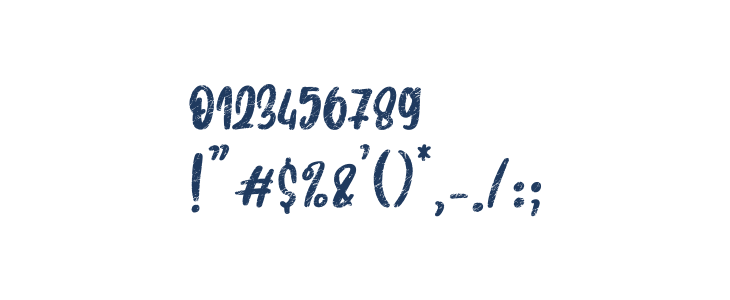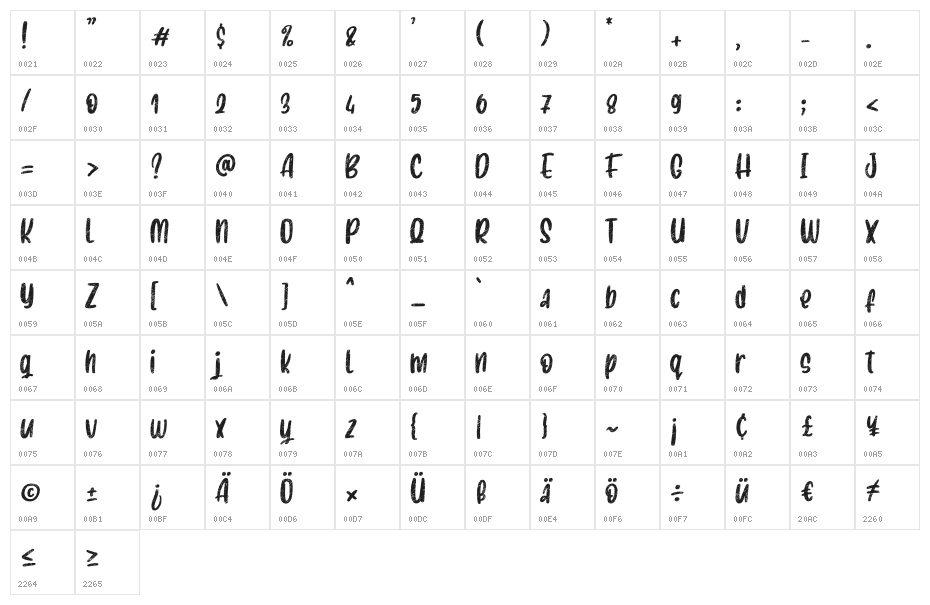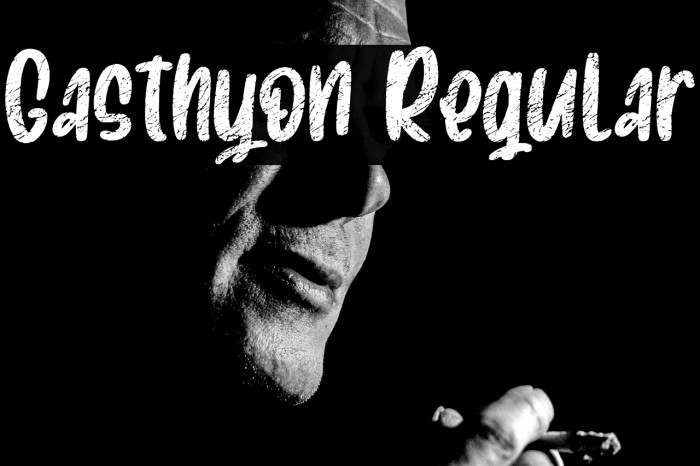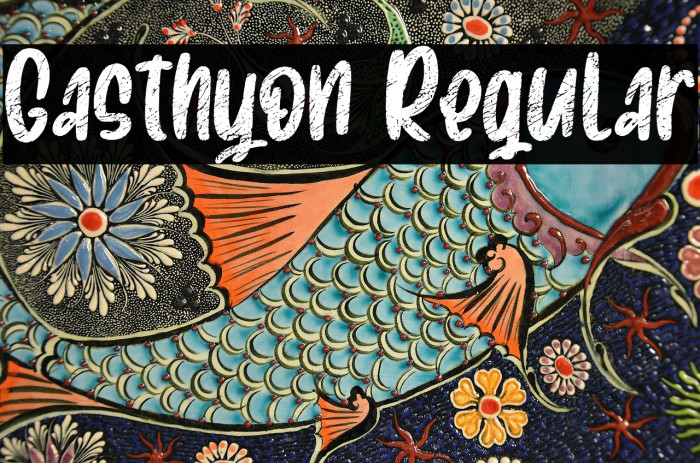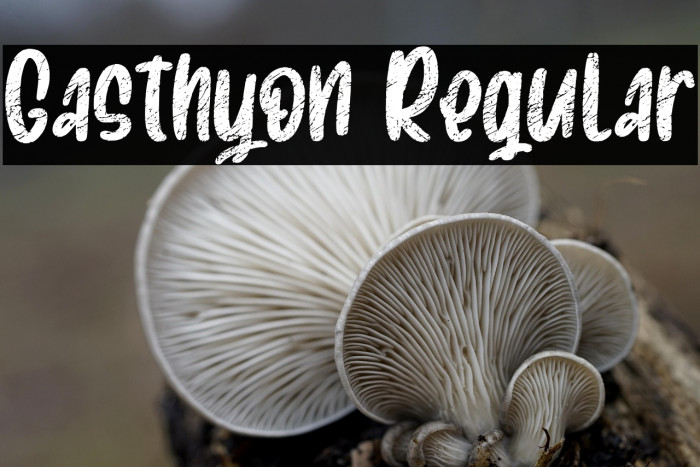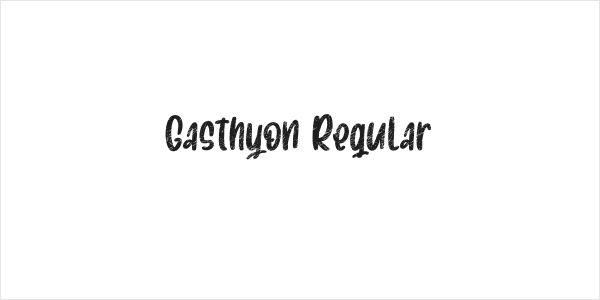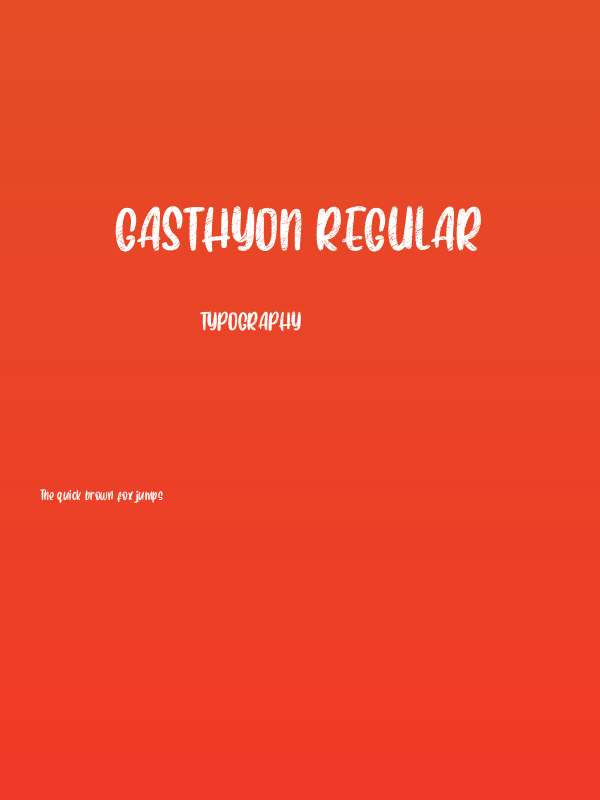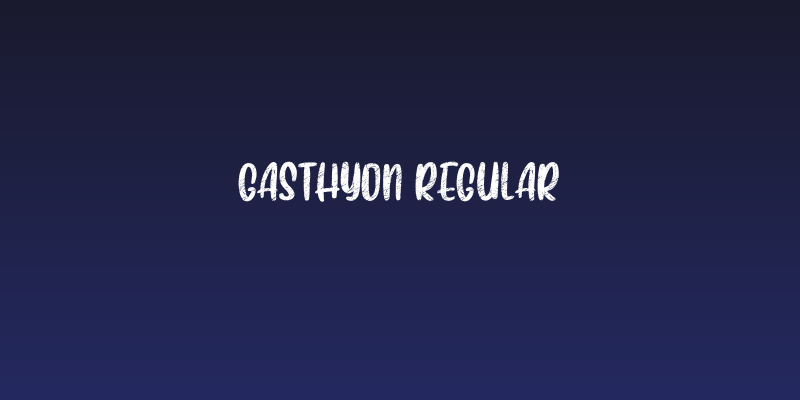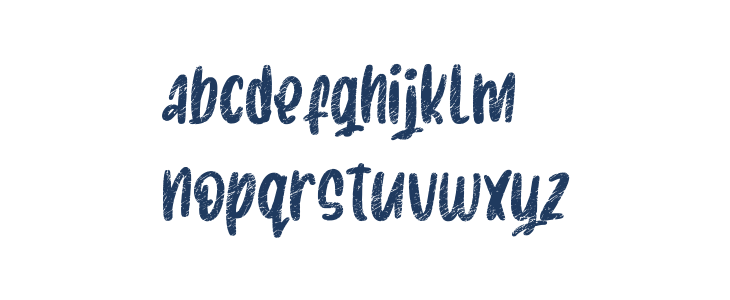
Gasthyon Regular Font
Gasthyon Regular Description
This font features a bold and textured style, reminiscent of hand-painted signage. The letters have a rough, distressed appearance, giving them a vintage and rustic feel. Each character is uniquely crafted with uneven edges and a slightly irregular baseline, adding to its handcrafted aesthetic. The uppercase and lowercase letters maintain a consistent style, with the uppercase being slightly more pronounced. Numbers and special characters follow the same design, ensuring uniformity across all glyphs. This font is perfect for projects that require a touch of nostalgia and personality.
| Overall Style | Vintage |
| Use Case | Logos, Headlines, Posters |
| Proposed Projects | Ideal for branding, posters, packaging, and any design needing a rustic, handcrafted touch. |